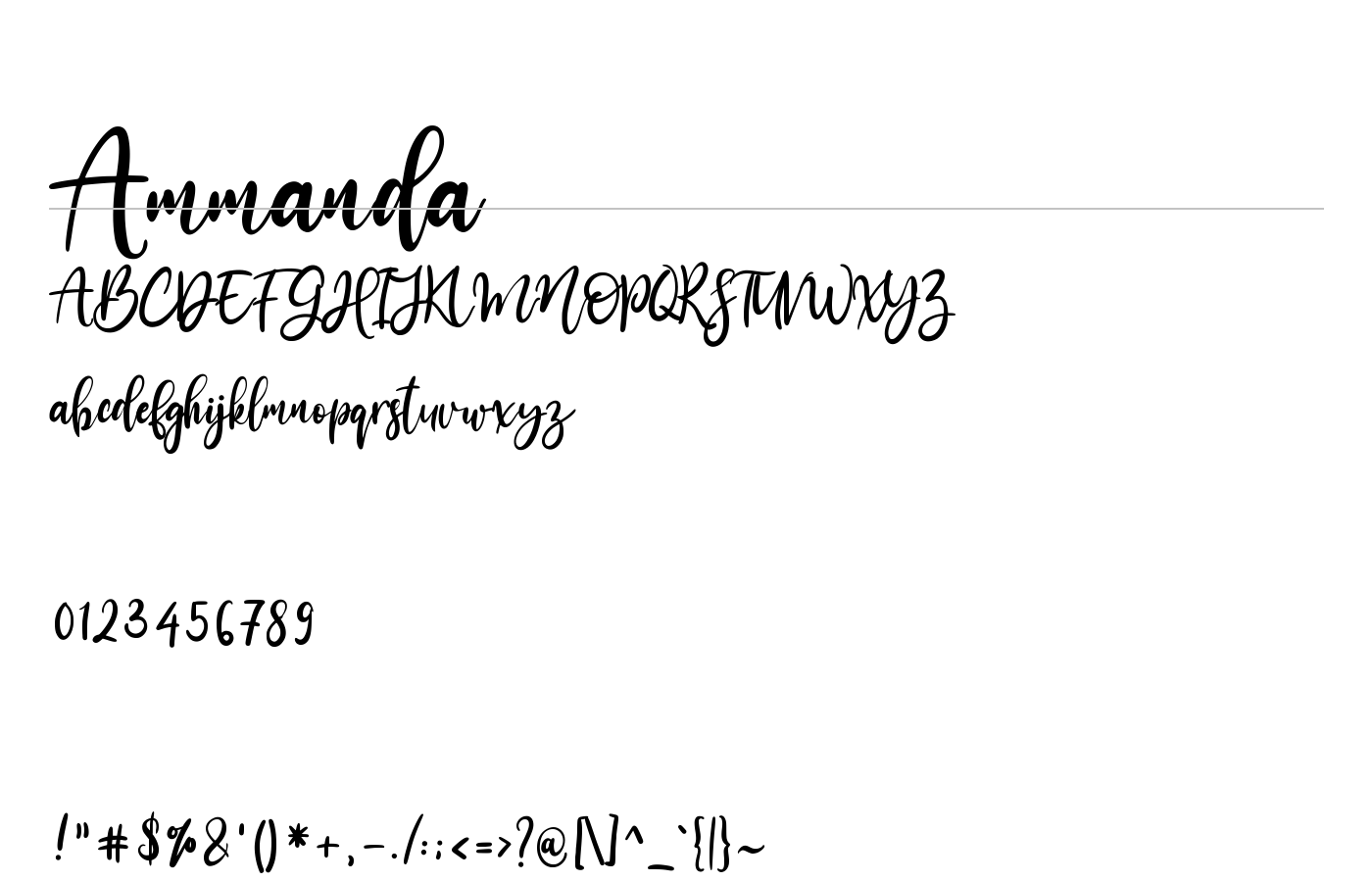
Ammanda is a graceful, modern script font with a handwritten feel, featuring smooth, flowing strokes and a balanced medium weight that offers elegance without heaviness. Its rounded, connected letterforms and slightly whimsical character make it perfect for projects seeking a personal, stylish touch, such as invitations, branding, and elegant logos. This font works well in headlines and decorative text where a charming, approachable yet refined look is desired.
Ammanda Font